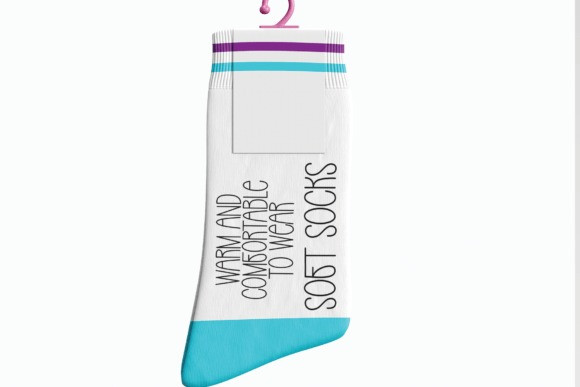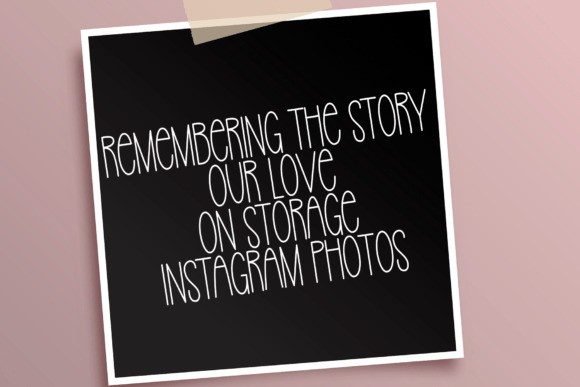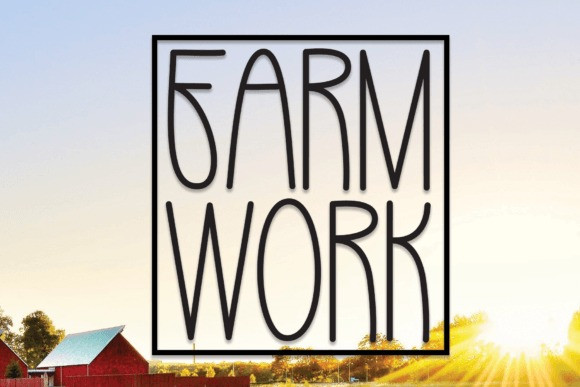
Farm Work Font
Farm Work Font, latest style letters are perfect for wall displays, wedding invitations, social media post logos, advertisements, product packaging, product designs, labels, photography, watermarks, invitations, stationery, and any project that requires beautiful typography.